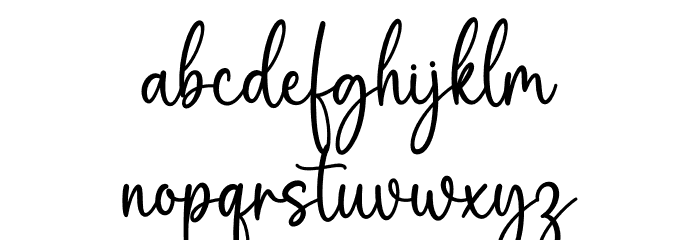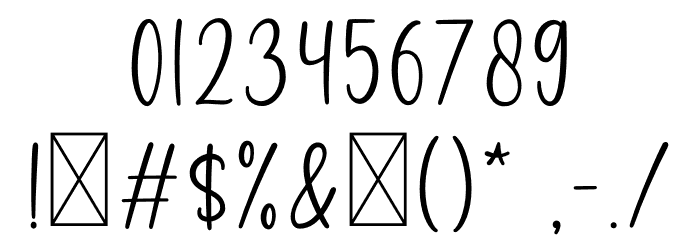
Friendship Font
This font features a playful and casual handwritten style, characterized by its fluid and smooth strokes. The uppercase letters are tall and slightly narrow, with a consistent stroke width that gives a uniform appearance. The lowercase letters exhibit a more connected and cursive style, adding a touch of elegance and flow. The numerals are clear and easy to read, maintaining the same playful aesthetic. Special characters are creatively designed, fitting seamlessly with the overall style of the font. This font is perfect for projects that require a personal and friendly touch.
A playful, casual handwritten font with smooth strokes and a friendly aesthetic.
- Font: Friendship
- Proposed Projects: Ideal for greeting cards, invitations, personal branding, and social media graphics.
- Overall Style: Casual, Playful
- Use Case: Headlines, Logos, Invitations